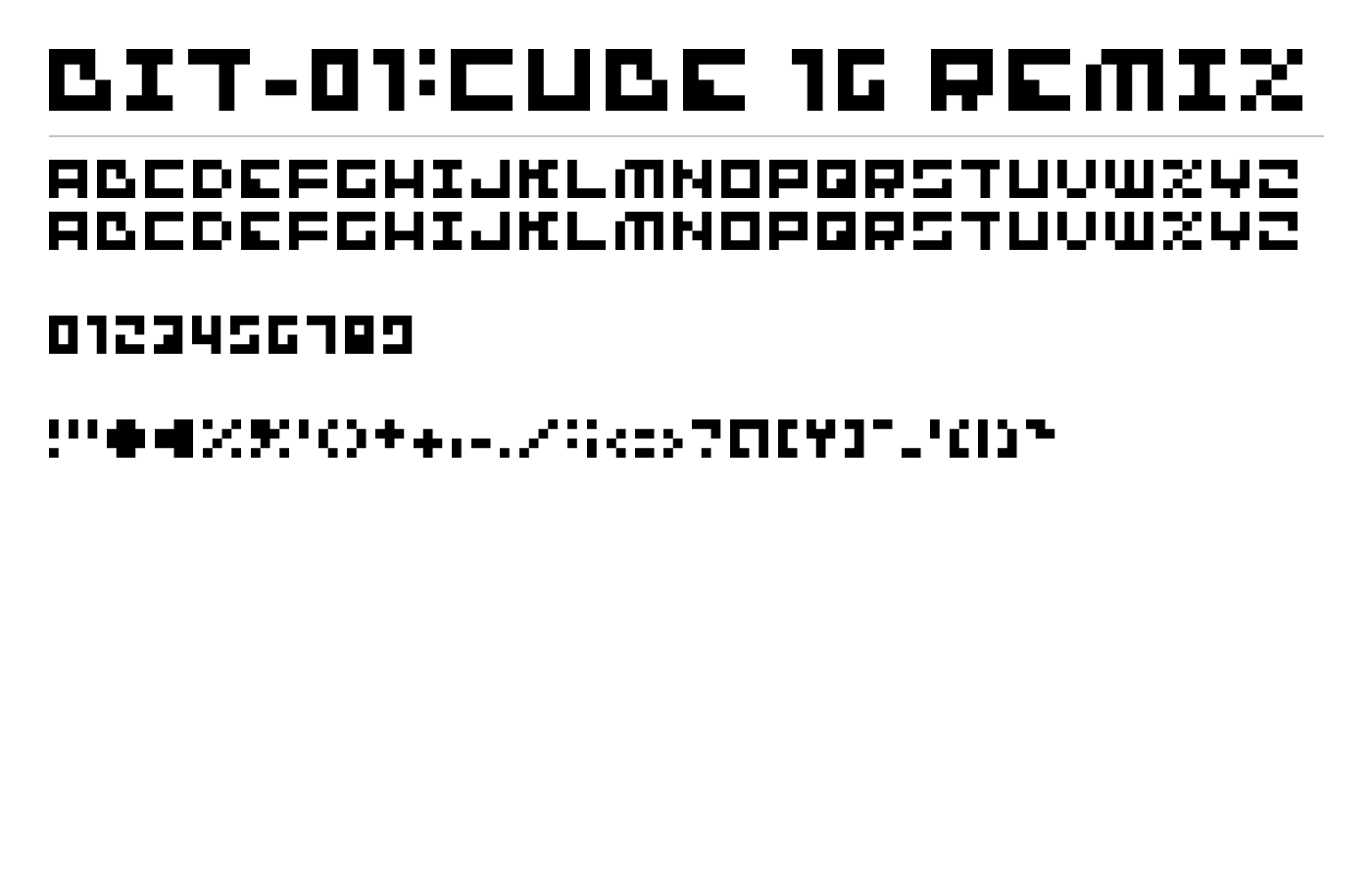
bit-01:cube 16 remix is a bold, pixelated sans serif font with a blocky and geometric style reminiscent of early digital or video game typography. Its monospaced, squared letterforms and sharp edges give it a distinctly retro, tech-inspired personality, making it ideal for designs evoking vintage computer aesthetics or futuristic digital themes. This font works best for display purposes such as logos, game interfaces, posters, or headlines where a strong, nostalgic digital vibe is desired.
bit-01:cube 16 remix Font